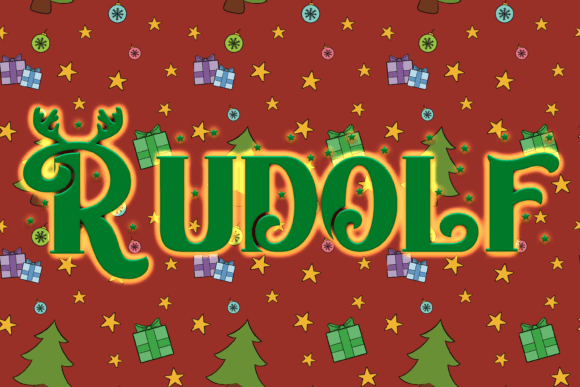
Meet Rudolf Font, a joyous and merry Christmas decorative font, beautifully crafted by the talented little_red_studio. Immerse yourself in the enchanting spirit of Christmas with this charming font, designed to bring warmth, cheer, and a touch of whimsy to all your holiday creations.
With its lively and playful vibes, Rudolf Font is the perfect companion for crafting heartfelt Christmas cards. Imagine your loved ones’ faces lighting up as they receive a greeting adorned with Rudolf's delightful characters. Spread the festive cheer with personalized ornaments, gift tags, and labels, each adorned with Rudolf's unique charm.
Explore the boundless possibilities of creativity with Rudolf Font. Transform your Christmas crafts into masterpieces, adding a touch of playful elegance to your decorations, invitations, and social media posts. Bring your holiday vision to life with this cheerful and versatile font, creating a festive atmosphere that captures the true spirit of Christmas.
Rudolf Font's versatility extends beyond Christmas. Its whimsical style adds a touch of enchantment to birthday invitations, party decorations, and even everyday correspondence. Its charming characters dance across the page, captivating attention and spreading joy wherever they appear.
Take your designs to new heights with Rudolf Font, the ultimate font for spreading Christmas cheer and creating captivating designs all year round. Embrace the festive spirit and make your creative visions come alive with this delightful font.